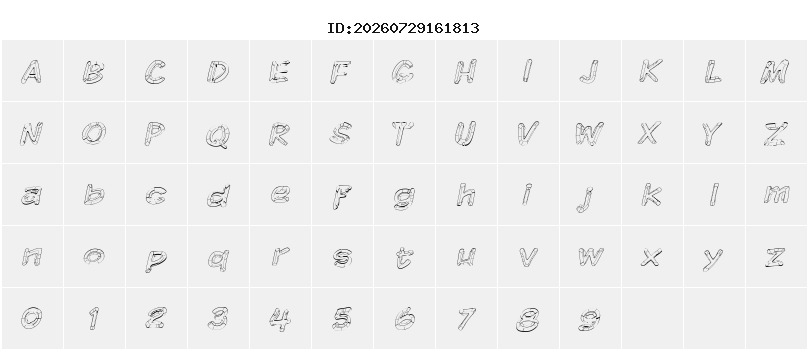
Komika Sketch Preview
• Font Name: Komika Sketch
• Designer: WolfBainX & Apostrophic Labs
About Komika Sketch.ttf
Komika Sketch.ttf is a modern, elegant sans-serif font designed for ultimate readability and visual harmony. Perfect for branding, headlines, web design, and print materials.